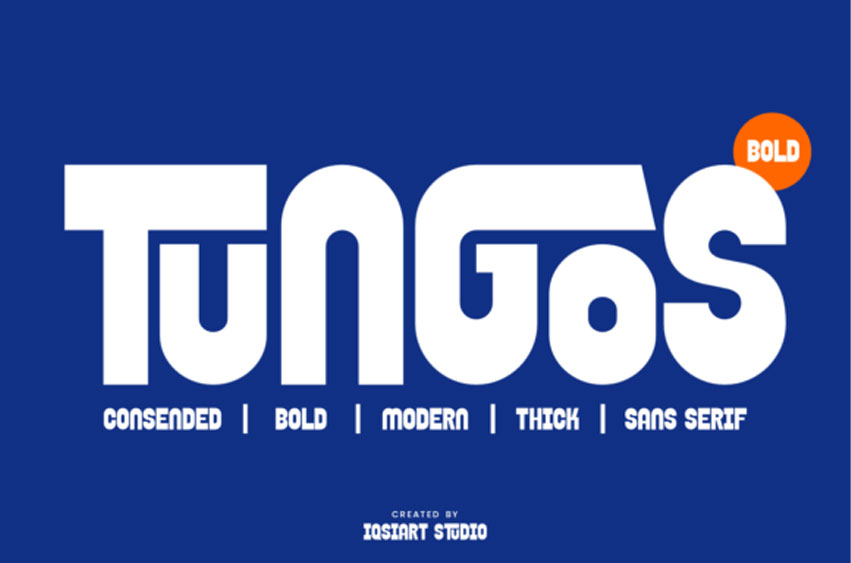
Tungos Font is a bold, condensed sans serif with a futuristic and geometric edge.
Its thick, structured forms and modern design make it ideal for headlines, tech branding, sports posters, and logos that demand strong visual impact.